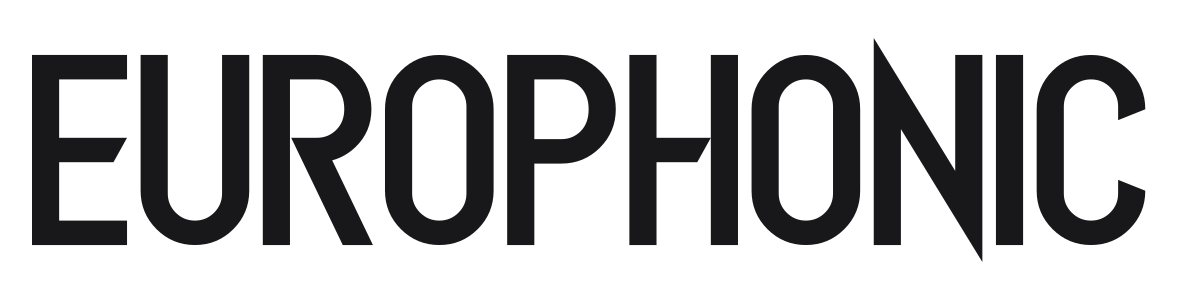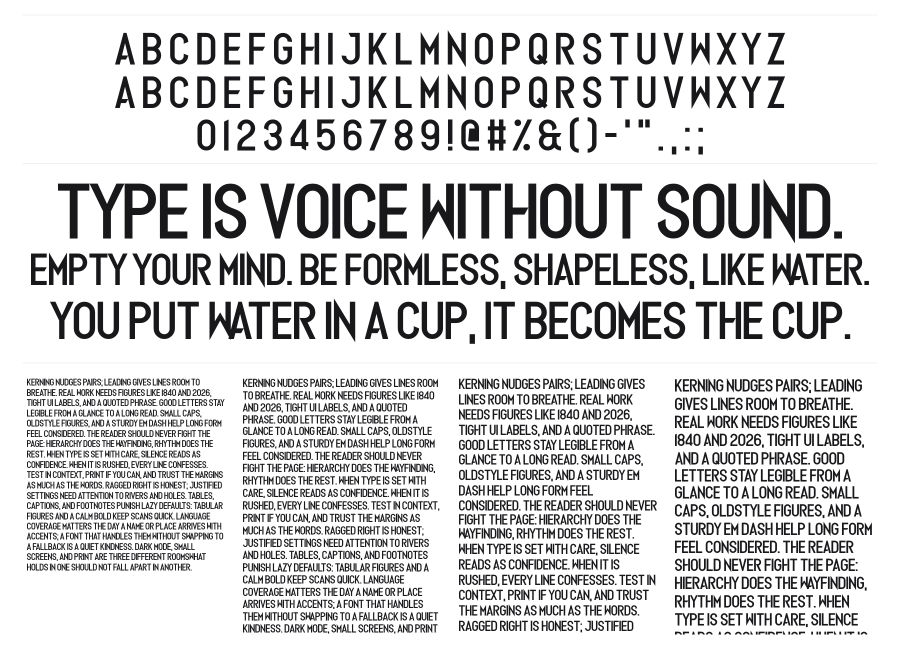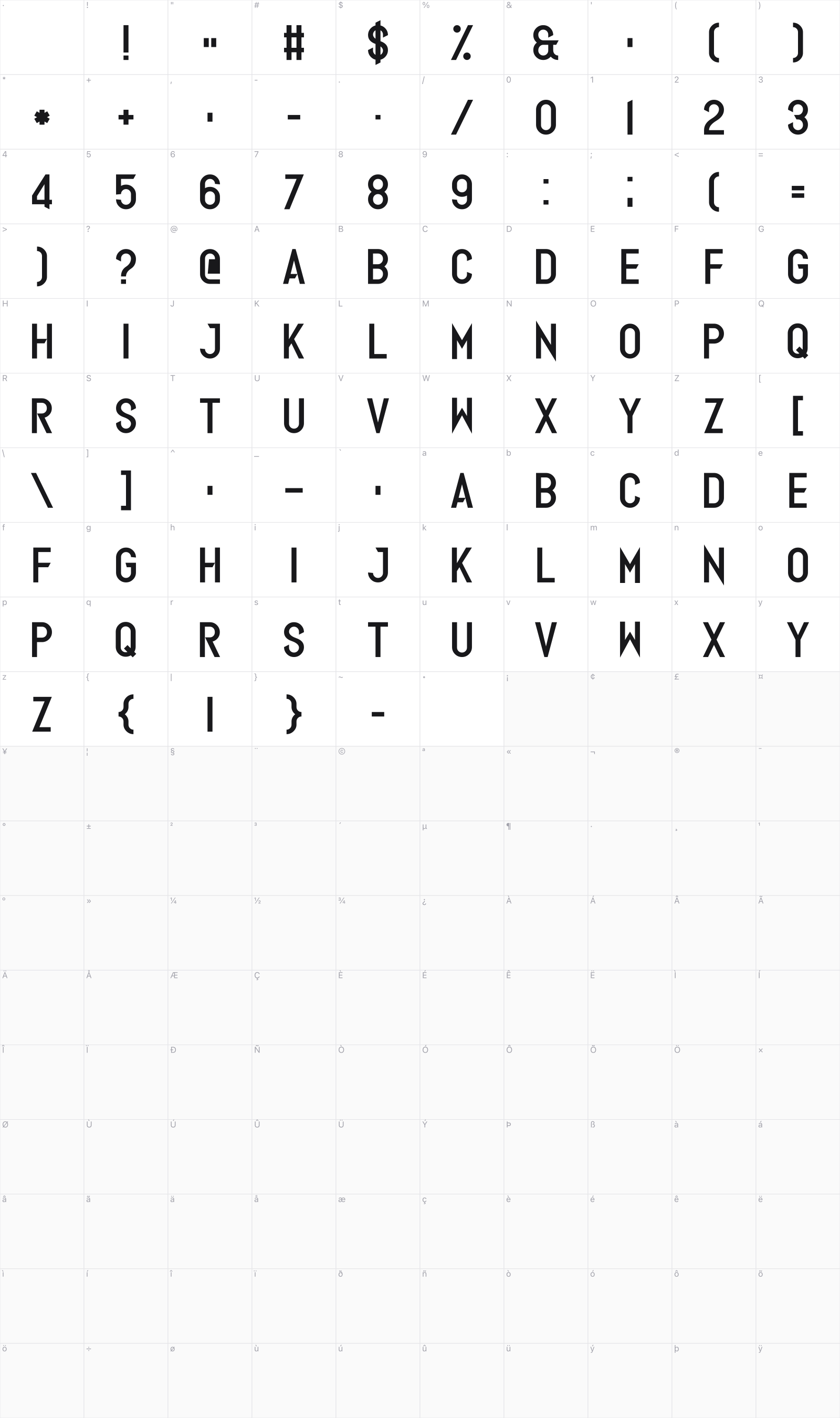
Europhonic
Euphonic is a tightly condensed geometric sans with sharp angular notches that cut into otherwise clean, upright strokes. The tall narrow proportions and wedge-shaped incisions give it a retro-futurist quality that recalls continental European poster lettering from the mid-20th century. It commands attention at large sizes and suits bold, graphic headline work.